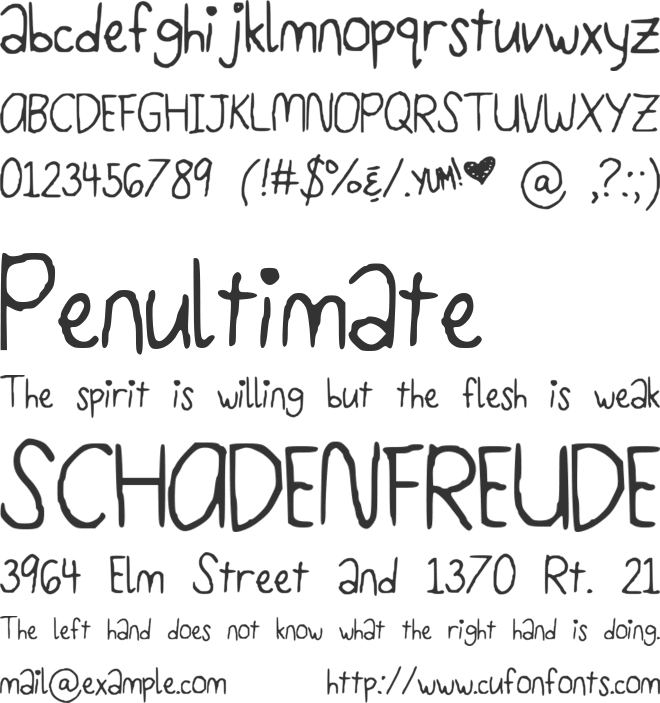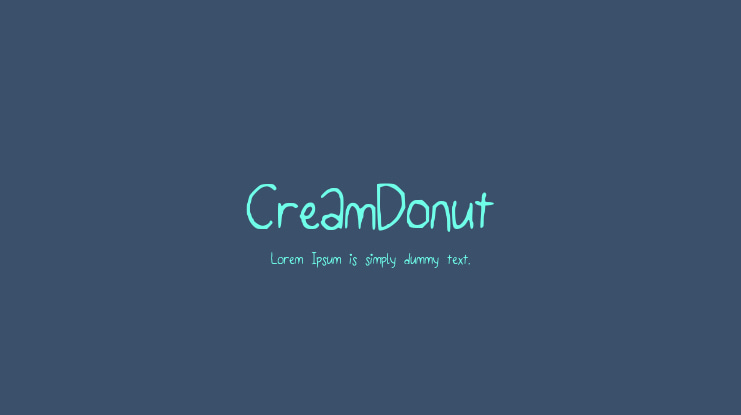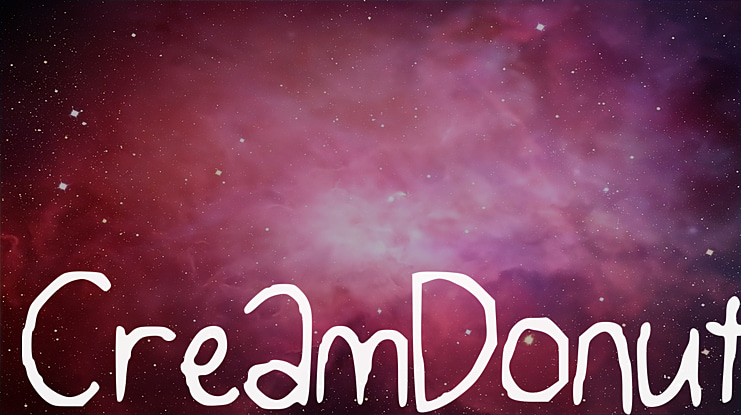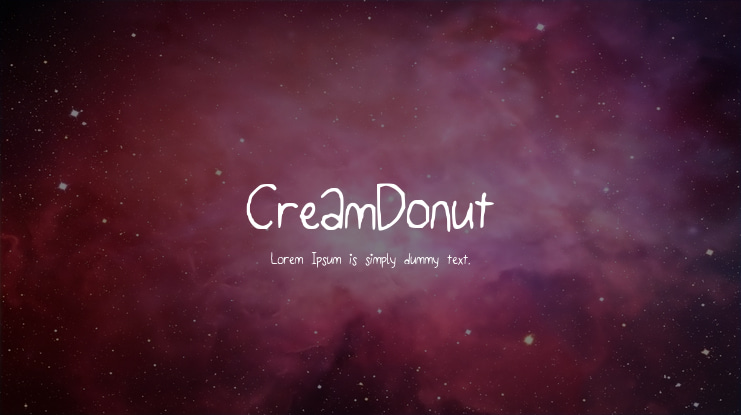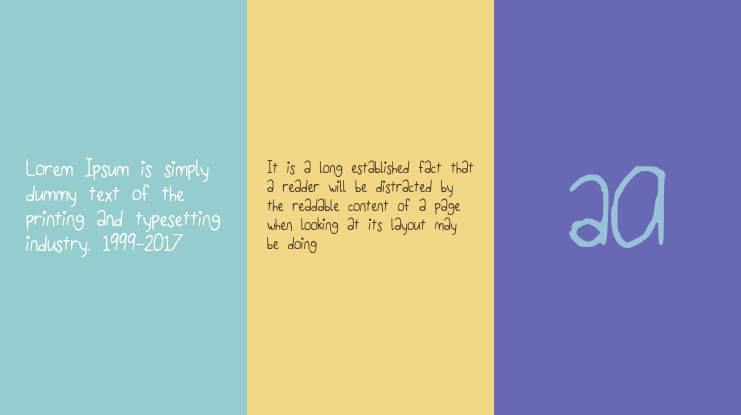
CreamDonut Font
The font is blurry, but that's how it is! Simple, bubbly and well... YUMMY!
"Sillyness just made YUMMIER!"
Created by MyScriptFont.com